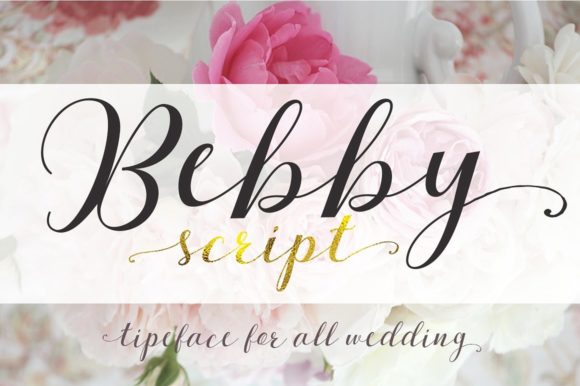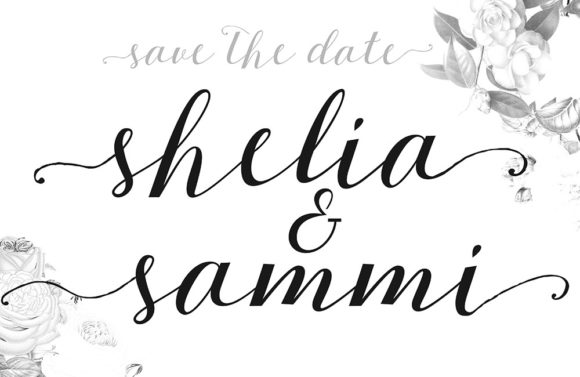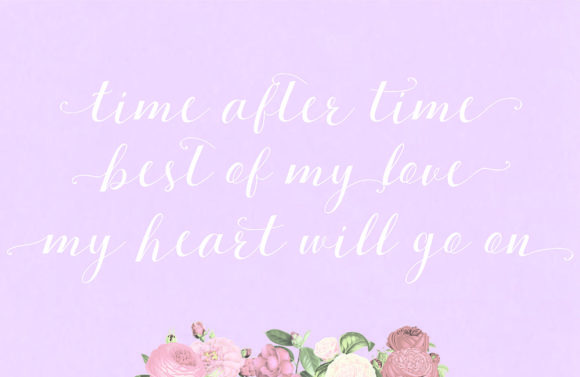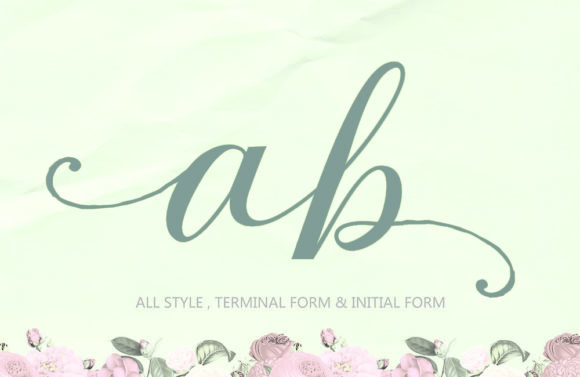
Bebby Script Font
About Bebby Script Font
Bebby is a unique and elegant script font, perfect for inspirational quotes, graphic t-shirts, art typography, clothes, labels, badges, posters, business cards, wedding-style invitations, mold, signs, emblems, books cover design headlines, titles, etc.